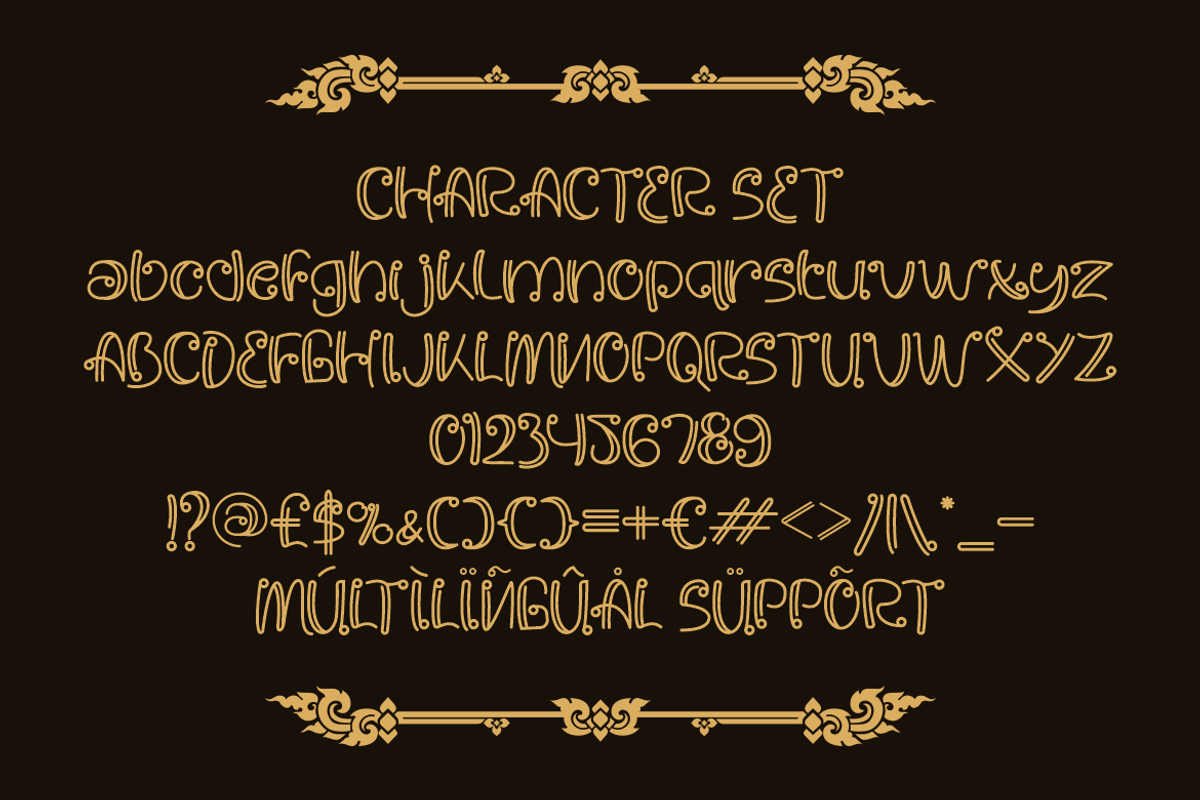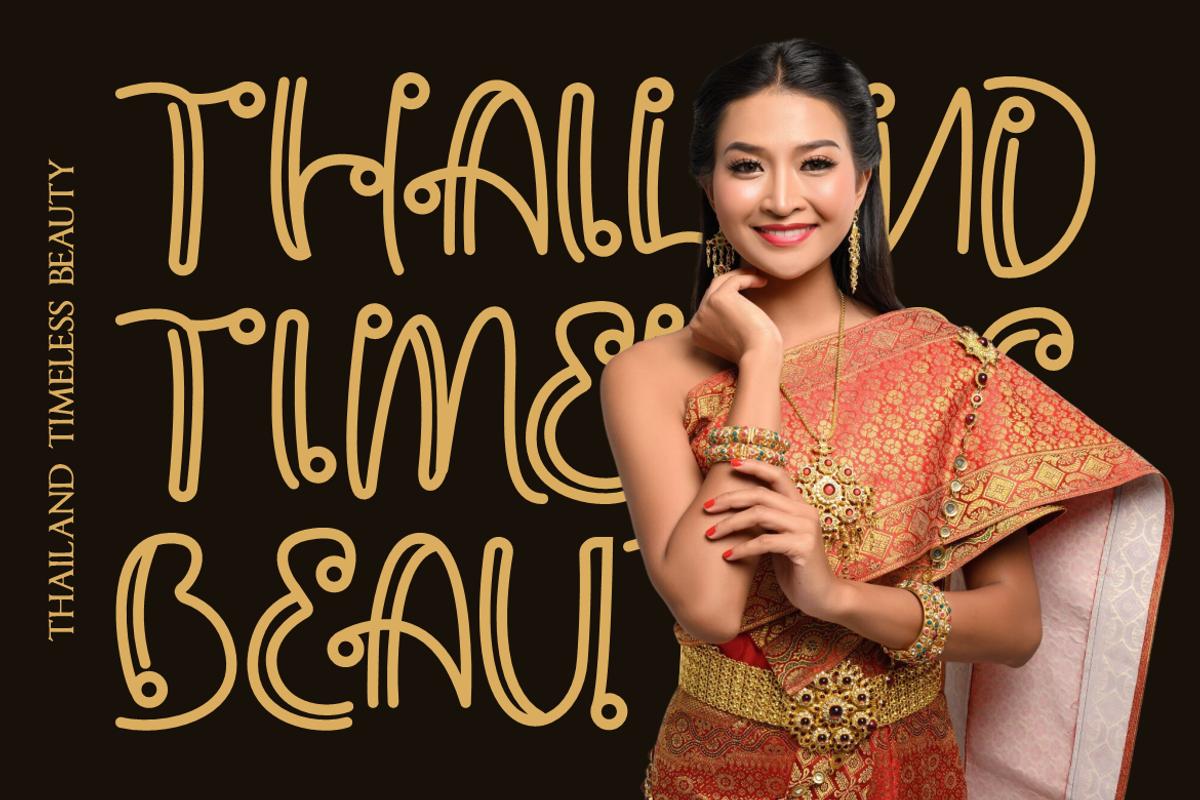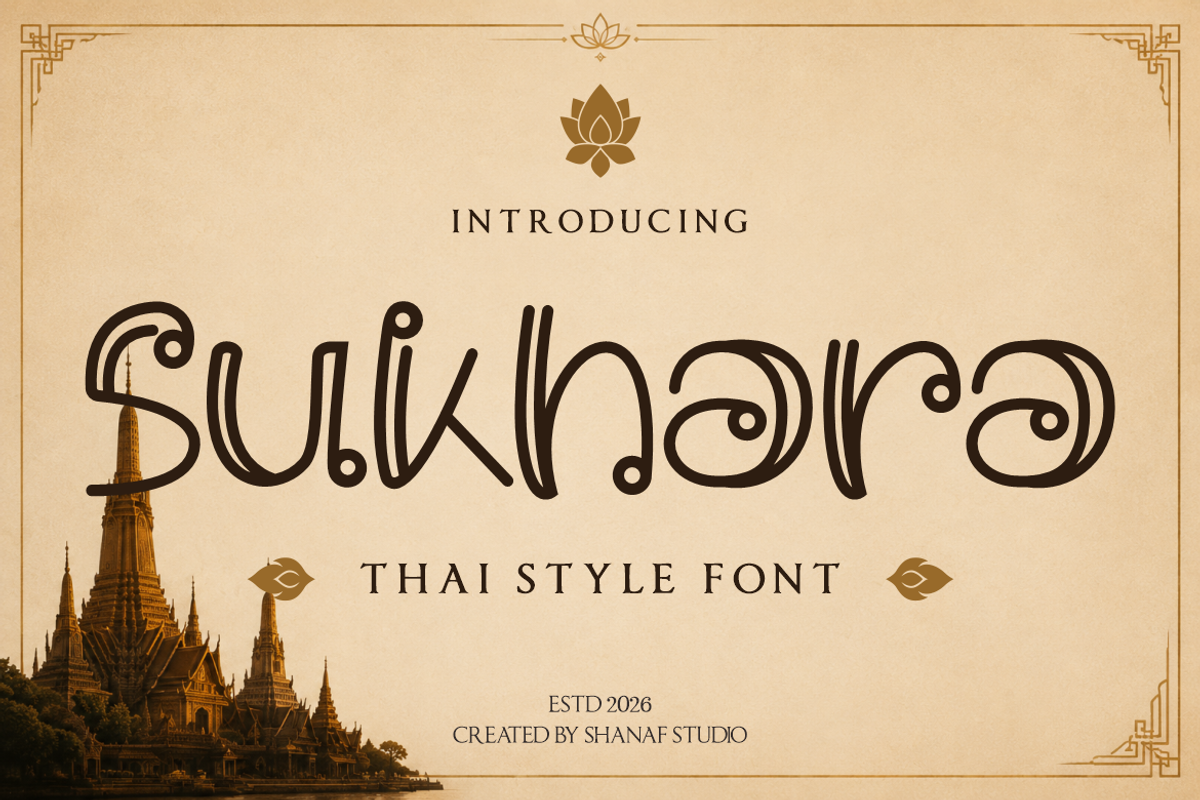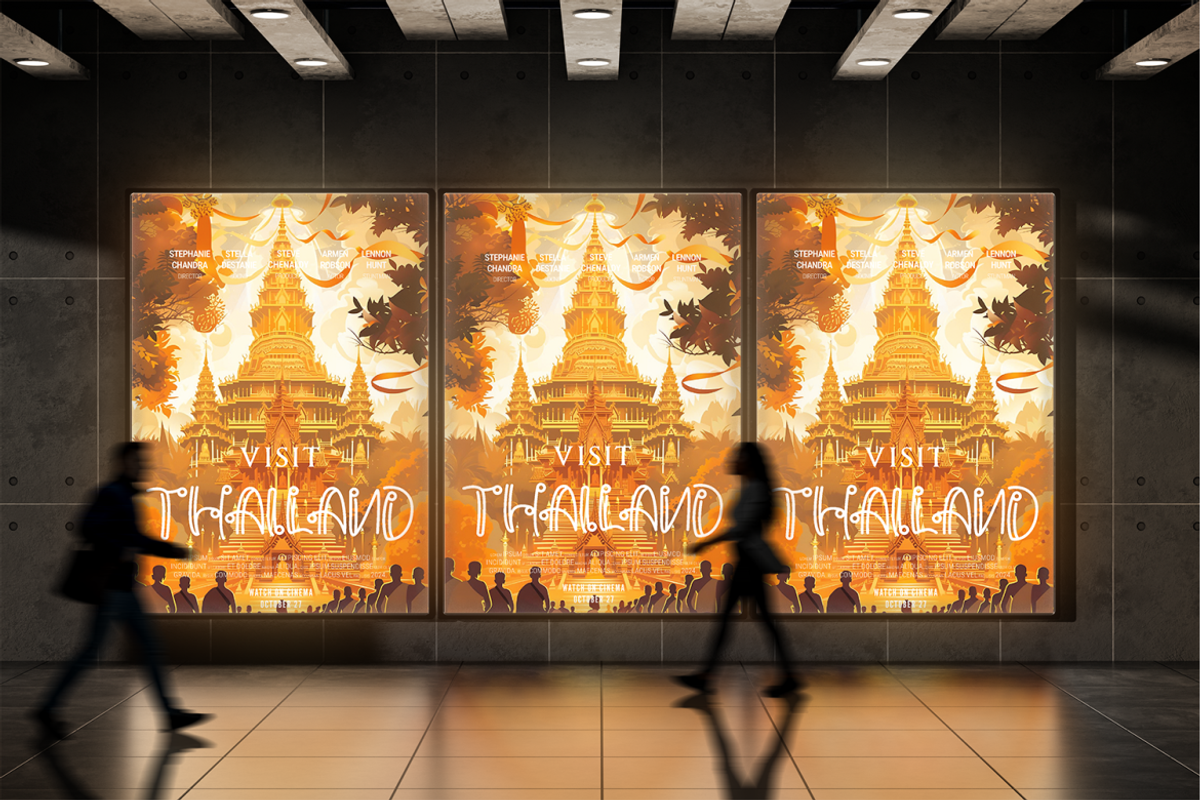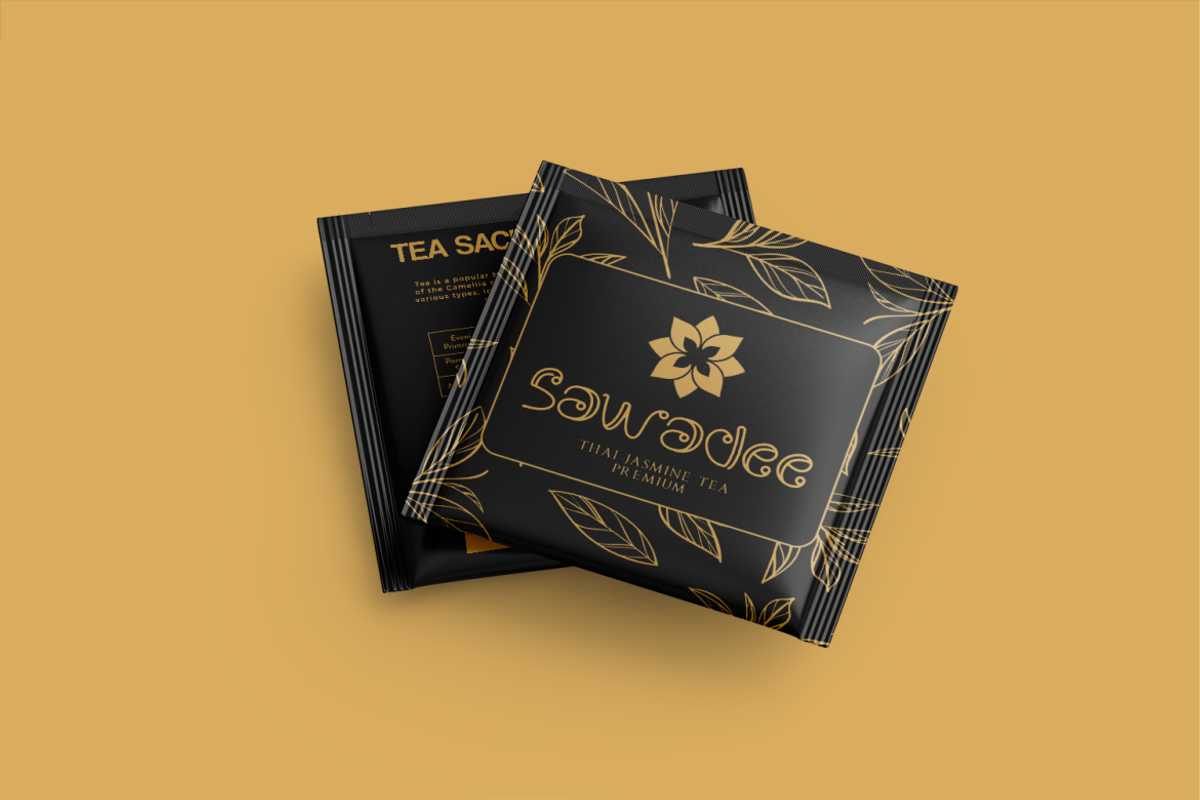
Sukhara Thai Style Font
Sukhara Thai Style Font captures the elegance of traditional Southeast Asian aesthetics through decorative letterforms and flowing ornamental details. The characters feature a monoline structure with consistent stroke weight, creating a balanced and refined appearance. Tall proportions and elongated forms give the font a graceful vertical rhythm, while rounded terminals and spiral-inspired details add a handcrafted cultural touch. The letter construction blends decorative curves with clean readability, allowing headlines and logos to remain distinctive without losing clarity. Several characters incorporate ornamental loops and flowing connections that evoke traditional craftsmanship and cultural artistry. This combination creates a foreign-inspired visual identity that feels authentic, sophisticated, and memorable. Sukhara Thai Style Font works beautifully for logos, branding, advertising campaigns, packaging, posters, headlines, book covers, magazine titles, greeting cards, invitation cards, stickers, crafting projects, cultural events, tourism promotions, product labels, business identities, restaurant menus, and promotional materials. The overall appearance delivers a graceful cultural atmosphere that immediately attracts attention and strengthens brand recognition.
This font suits businesses and creative projects connected with culture, travel, hospitality, wellness, and artisan products. It works naturally for Thai restaurant branding, Asian food businesses, tea products, spice products, herbal products, wellness brands, beauty products, cultural festivals, travel agencies, tourism campaigns, resorts, hotels, meditation centers, yoga studios, handcrafted goods, souvenir businesses, and specialty retail products. Beyond Thai-inspired concepts, the font supports any brand seeking an elegant cultural identity with an international appeal. It performs effectively on food packaging, beverage packaging, event posters, destination campaigns, cultural exhibitions, film titles, publishing projects, luxury gift products, and artisan packaging. The decorative forms help communicate tradition, craftsmanship, and authenticity while maintaining strong visual impact. Sukhara Thai Style Font also serves businesses focused on heritage storytelling, cultural experiences, and premium hospitality services. Its expressive character helps transform ordinary branding into a memorable visual experience that feels artistic, welcoming, and culturally inspired across both digital and printed media.